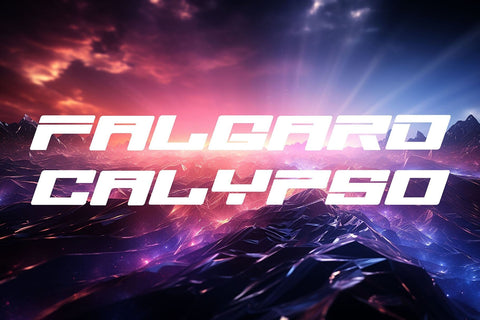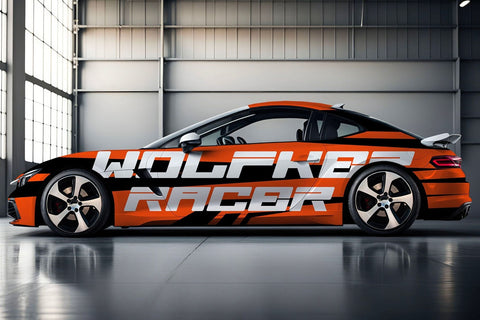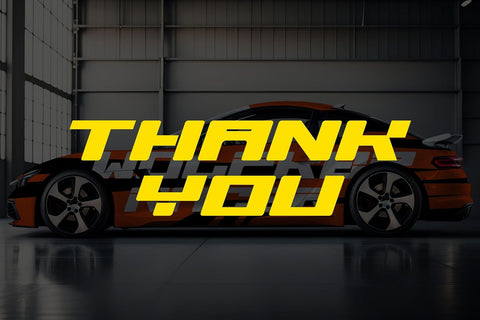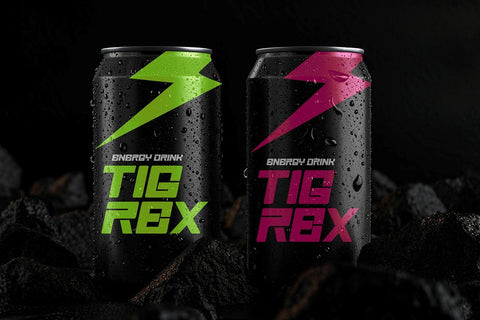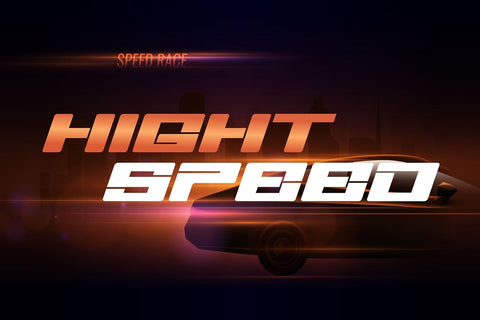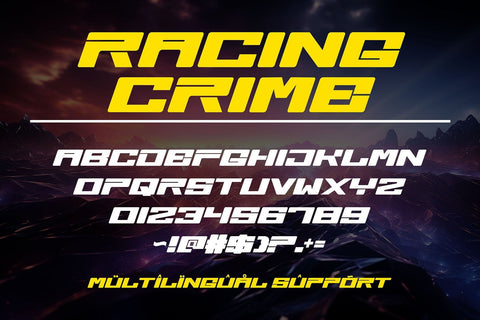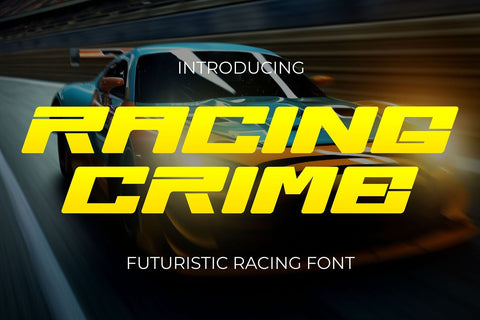
Racing Crime - Futuristic Racing Font
"Racing Crime" is a futuristic racing display font that exudes speed and modernity. Designed with sleek lines and dynamic shapes, this font captures the essence of high-octane motorsports and the cutting-edge world of racing. Perfect for logos, posters, advertising, and branding related to motorsports, video games, automotive products, and other dynamic themes, "Racing Crime" adds a bold, contemporary flair to your designs. Its distinct style ensures that your projects stand out, making a powerful statement with every use. Whether you're creating headlines, titles, or promotional materials, "Racing Crime" delivers an adrenaline-pumping aesthetic that drives your message home with intensity and style.